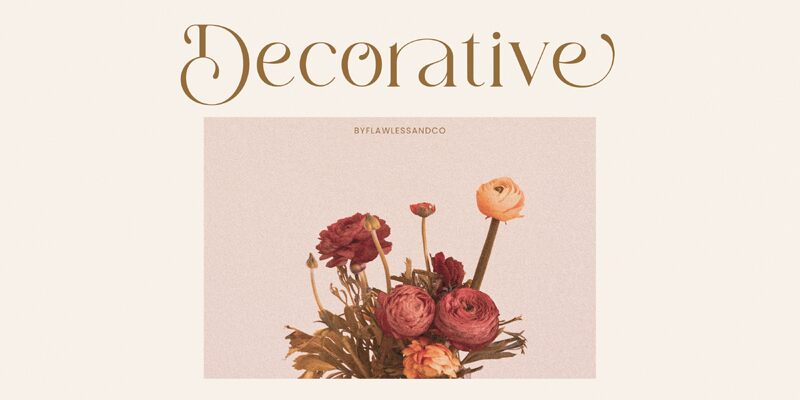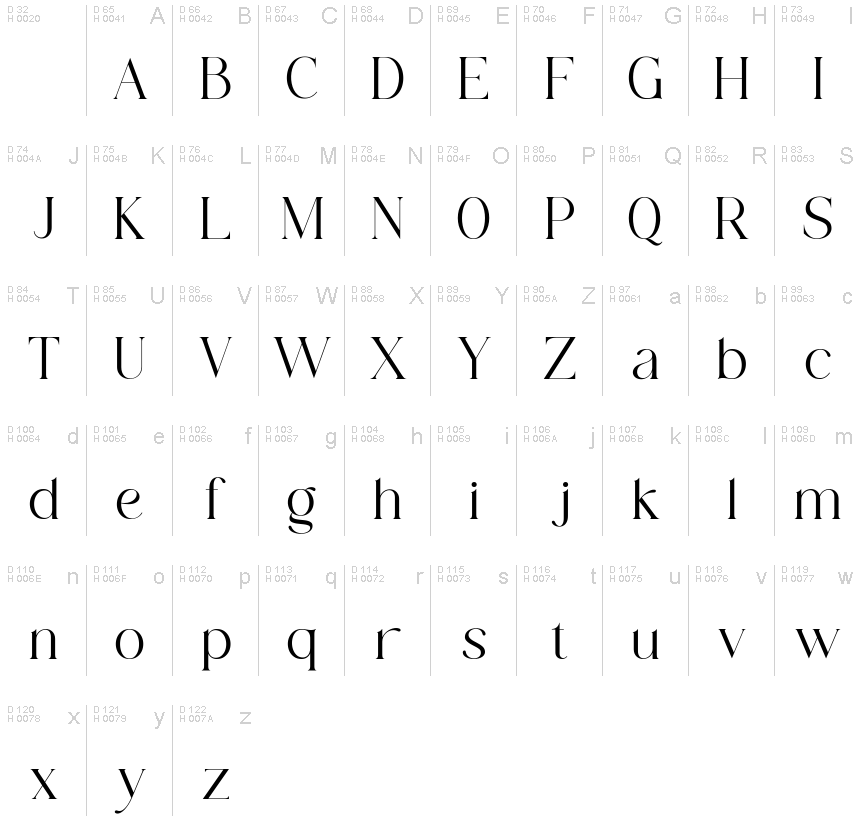
Mogan Regular
Mogan is a captivating vintage serif font crafted by Achmad Yani of Flawless and Co. This typeface exudes a timeless elegance, with its intricate serifs and refined stroke variations creating a striking visual presence. The font's delicate, yet robust character evokes a sense of sophistication and heritage, making it an alluring choice for designers seeking to infuse their projects with a touch of vintage charm.
The Mogan font's versatility allows it to seamlessly integrate into a variety of design contexts, from editorial layouts and branding materials to packaging and advertising campaigns. Its distinctive personality lends itself particularly well to projects that aim to convey a sense of tradition, authenticity, and refined aesthetics, making it a versatile and compelling option for designers seeking to elevate their work.